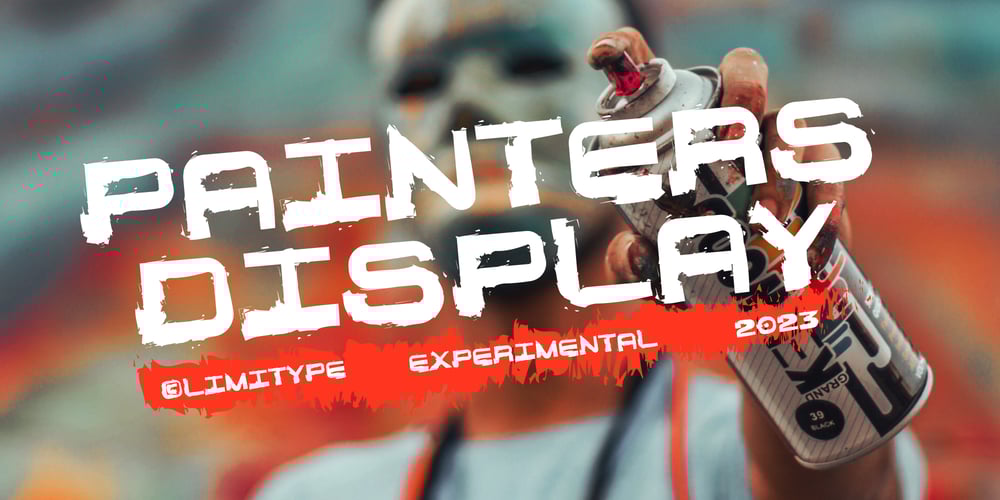
Painters Display Font Family was designed by Muhammad Muammar and published by limitype. Painters Display contains 1 styles and family package options. Painters Display is a font with a brutal style but still modern and fun, inspired by paint splashes and scratches, suitable for your fun, free and cool designs, This font can be applied at large sizes for optimal results such as headlines, posters, banners, etc. Painters display available with Allcaps, Symbol & Number